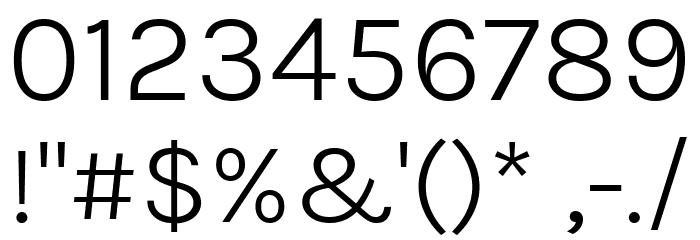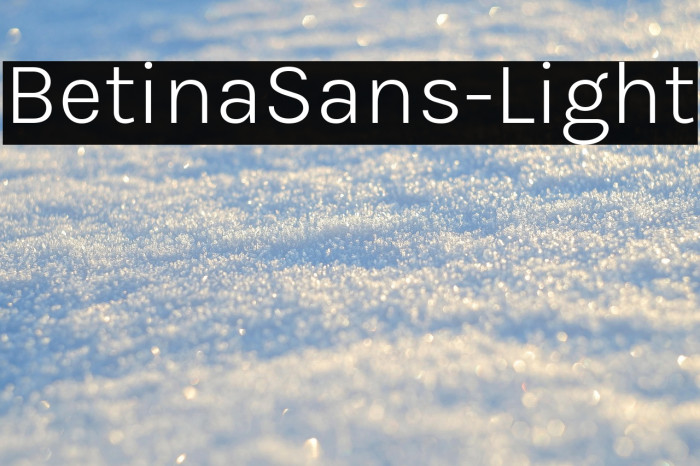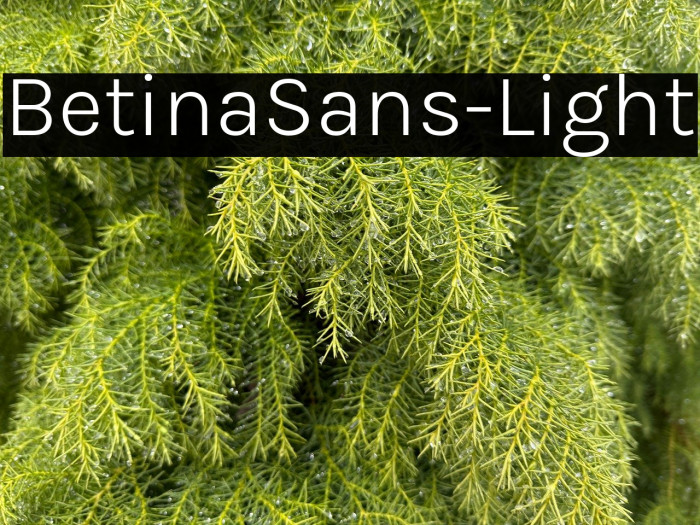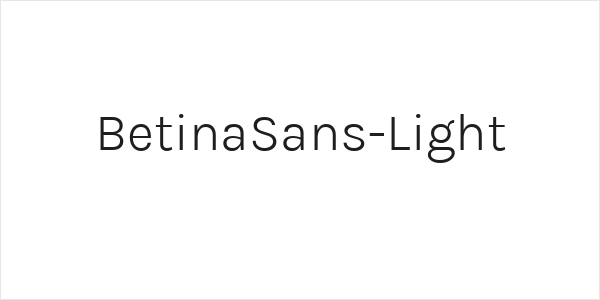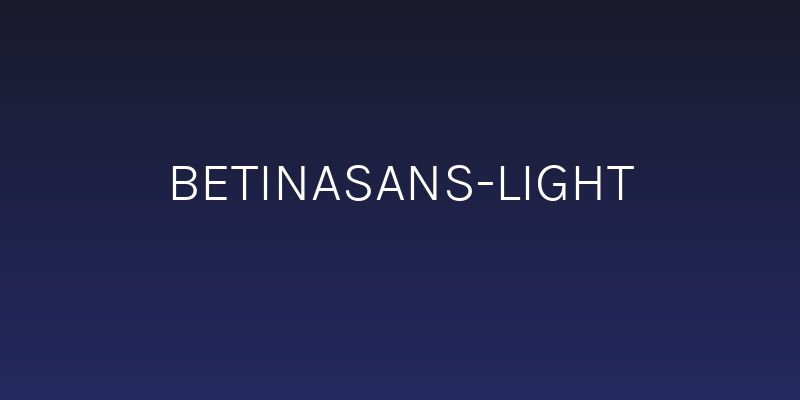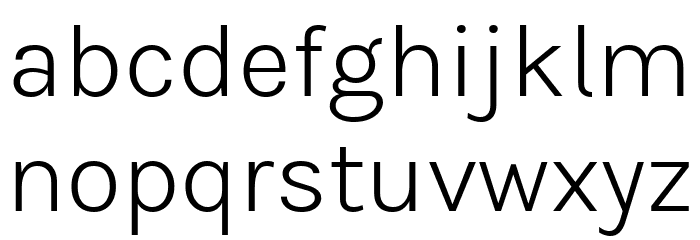
BetinaSans-Light Font
BetinaSans-Light Description
This font is a clean and modern sans-serif typeface characterized by its light weight and minimalistic design. It features uniform stroke widths, contributing to a sleek and contemporary appearance. The characters are well-proportioned with a balanced x-height, making it highly legible across various sizes. The font includes a full set of uppercase and lowercase letters, numerals, and a range of punctuation marks and special characters. Its simplicity and clarity make it versatile for both digital and print media.
| Proposed Projects | Ideal for use in web design, corporate branding, user interfaces, and editorial layouts. |